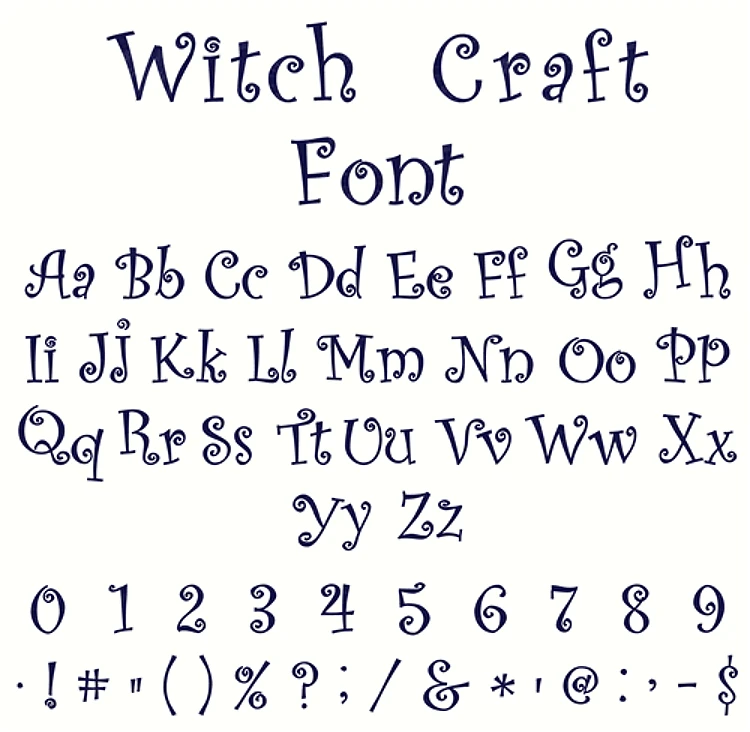
Maya Kreations is happy to present Witchcraft Font Embroidery Font - Whimsical Curly Lettering - PES, DST & 6 formats machine embroidery font which has Decorative machine embroidery font with playful, curly letters, perfect for Halloween projects on costumes and decor. Available in PES, DST and 6 other formats. included. If you would like to view more embroidery fonts and alphabets please search our embroidery fonts page.